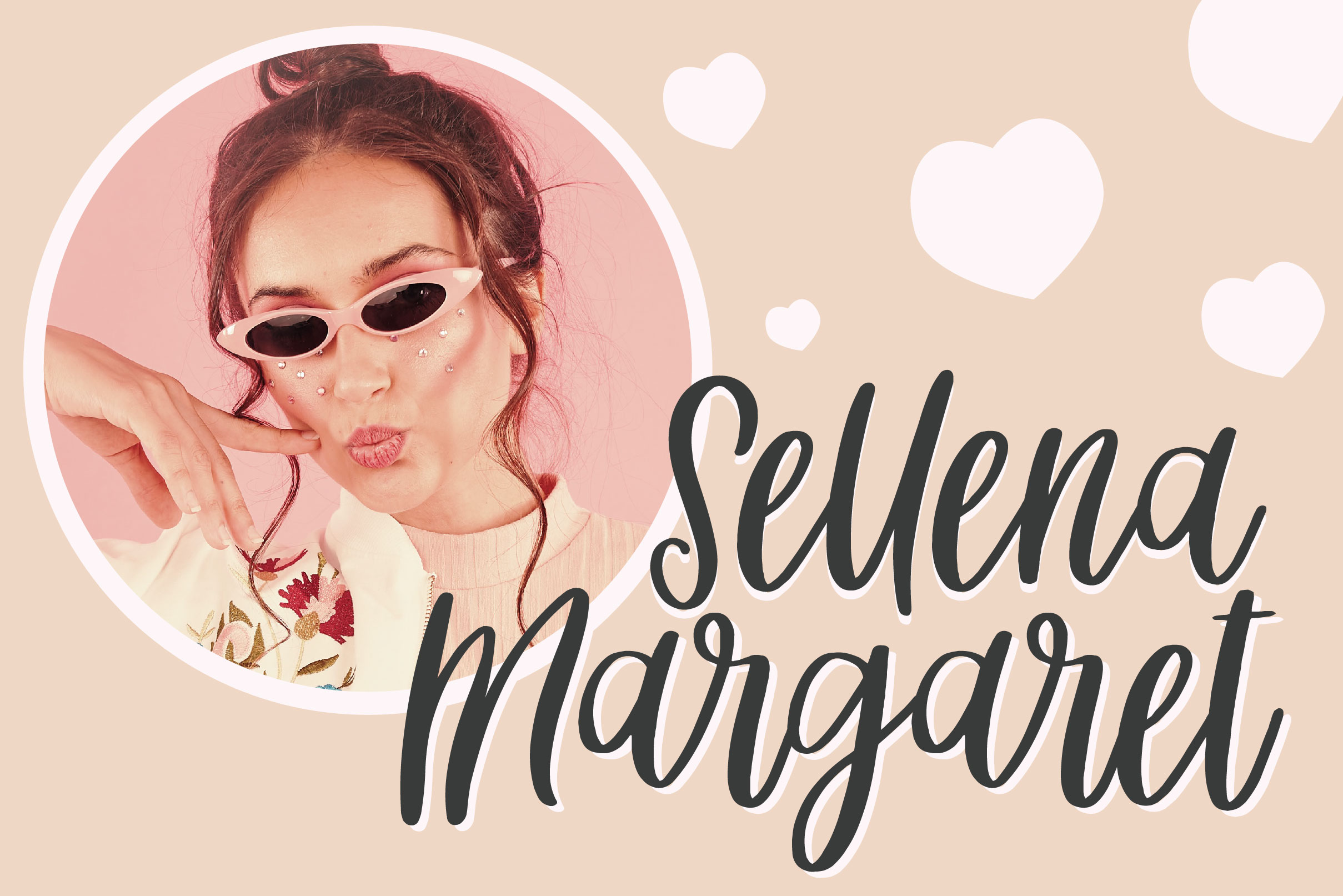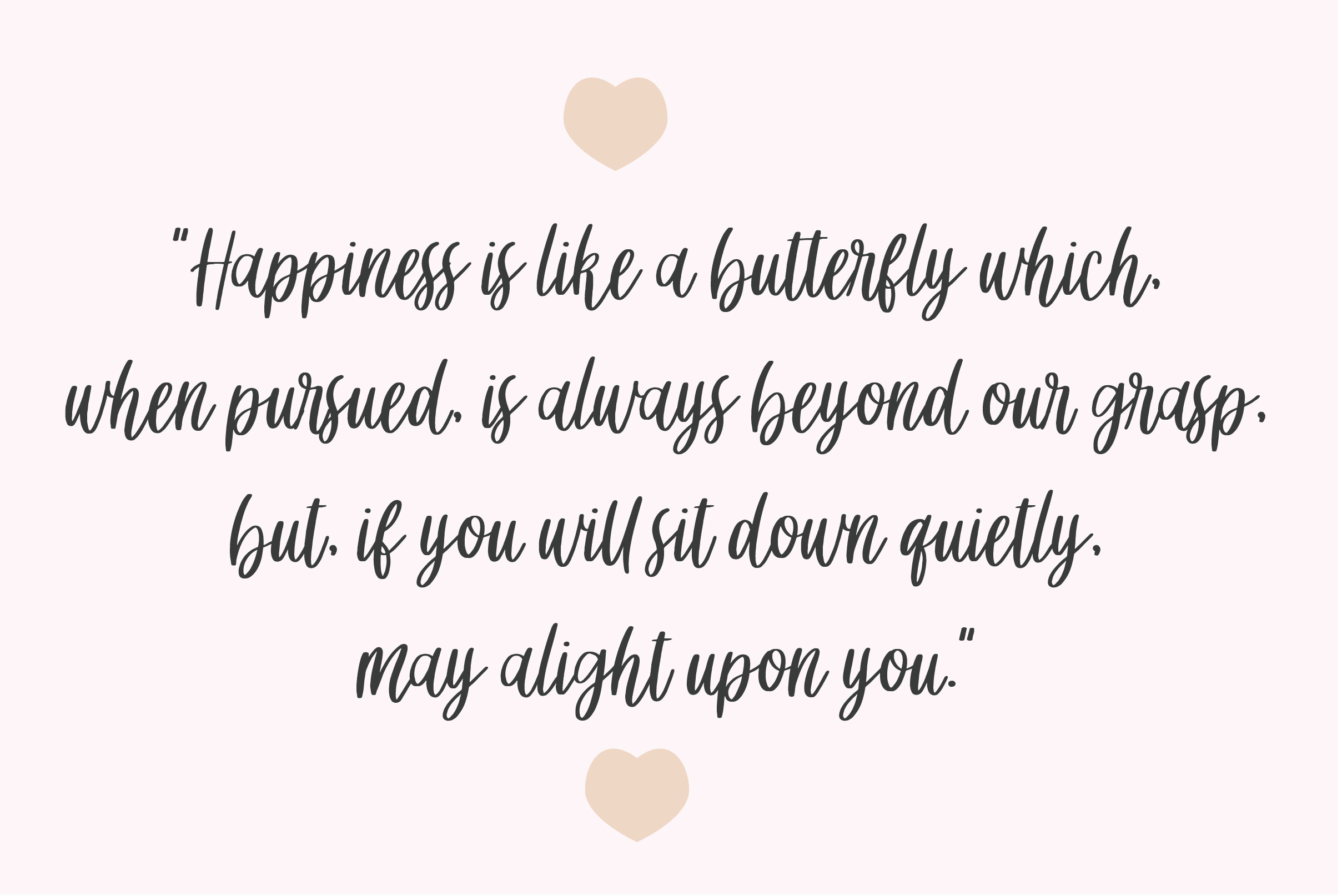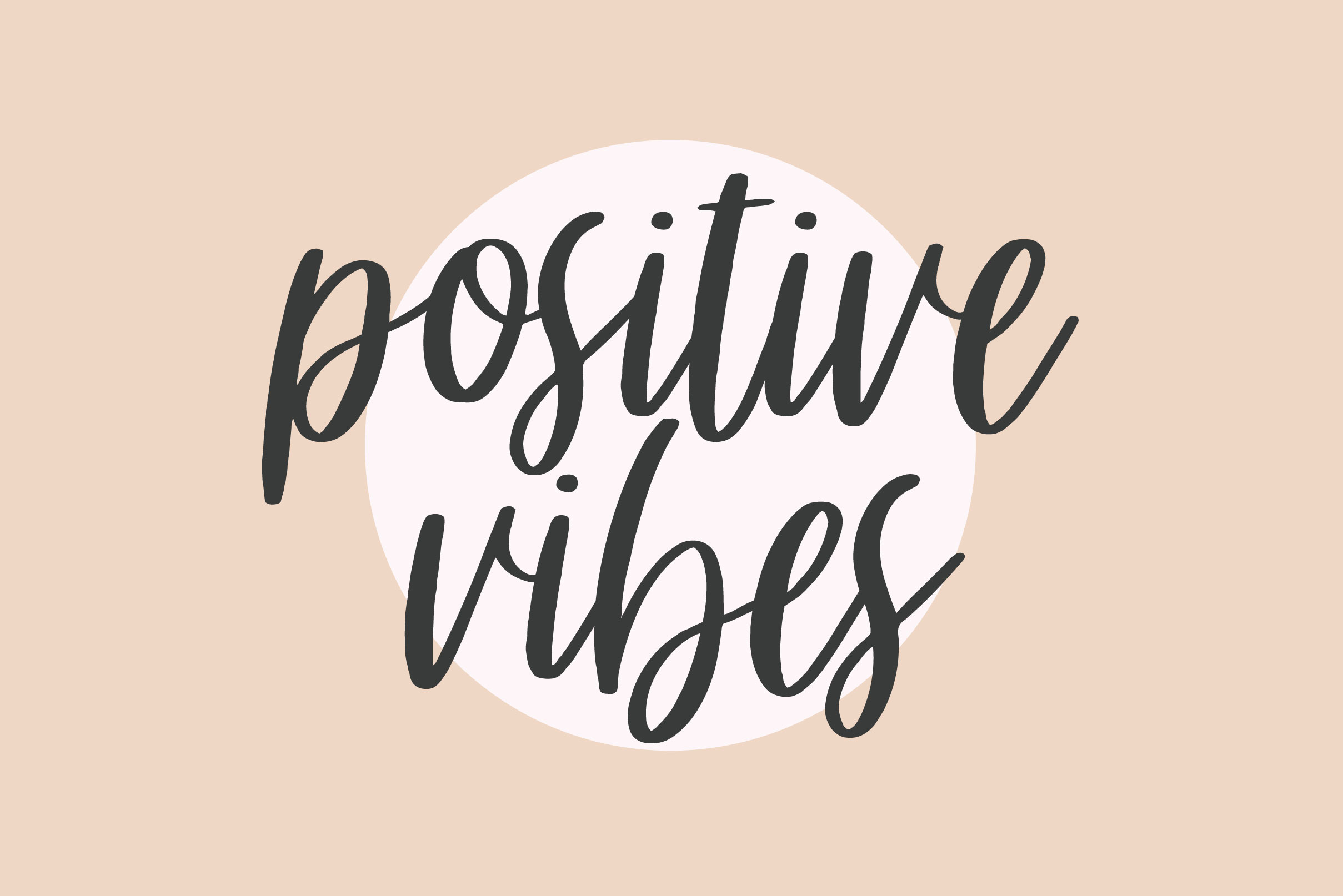
Wellington Font
Wellington Script Font is suitable for young, passionate designs. With an extremely modern and appealing style, this script font is perfect for displays and other design purposes that are meant to grab attention.
– Uppercase, Lowercase, Numeral & Punctuation
– Alternate Letters, Ligature & Swash/Tail